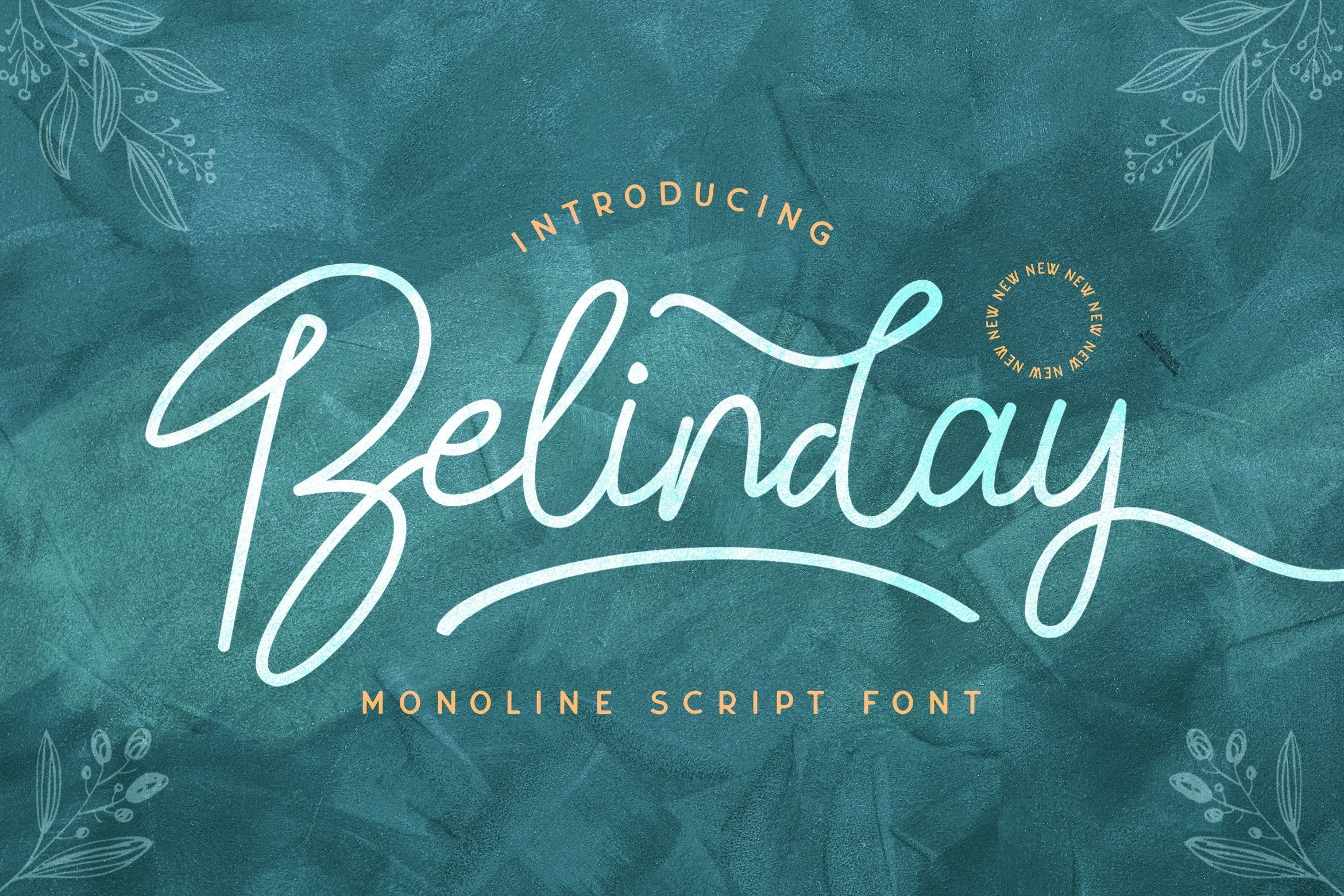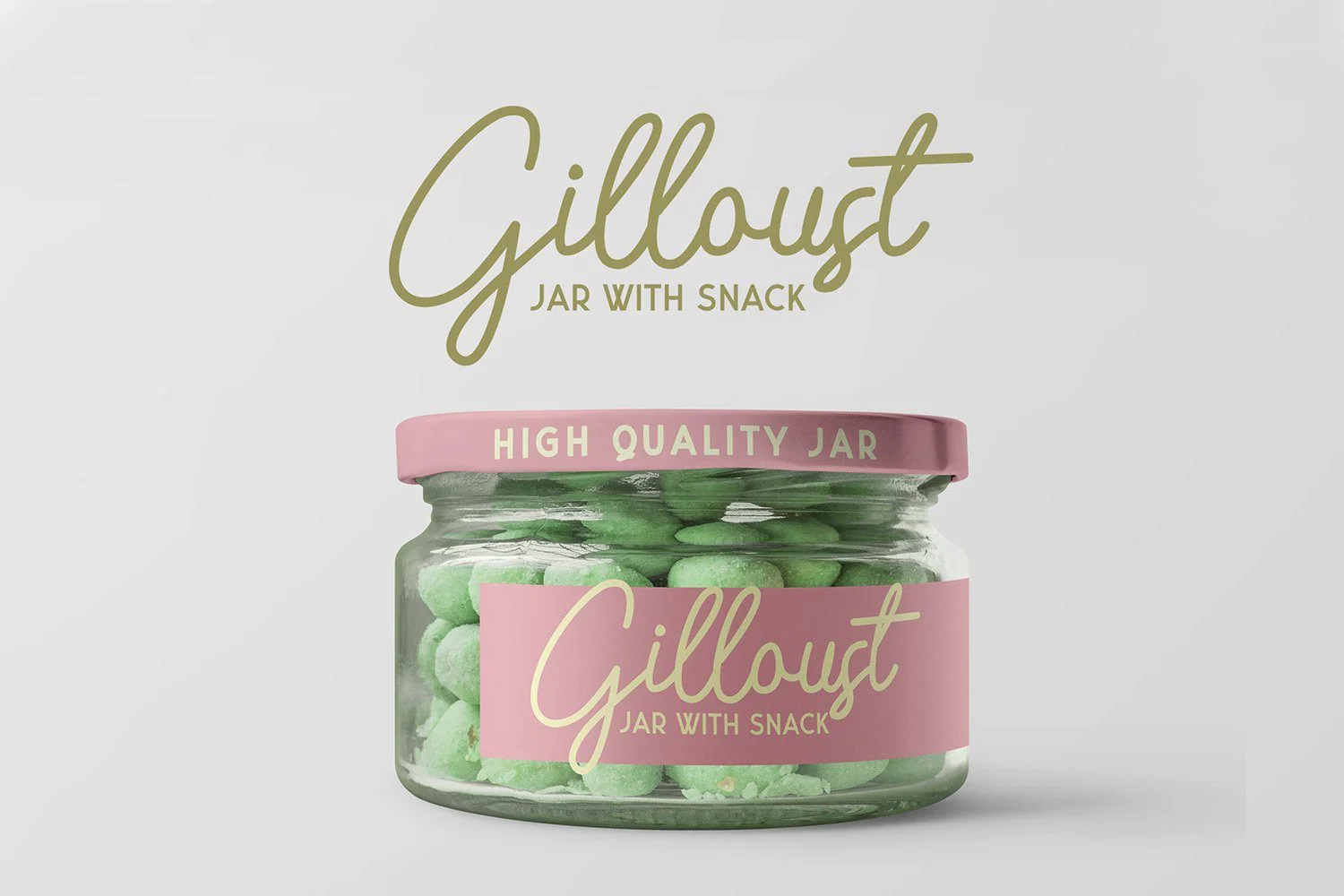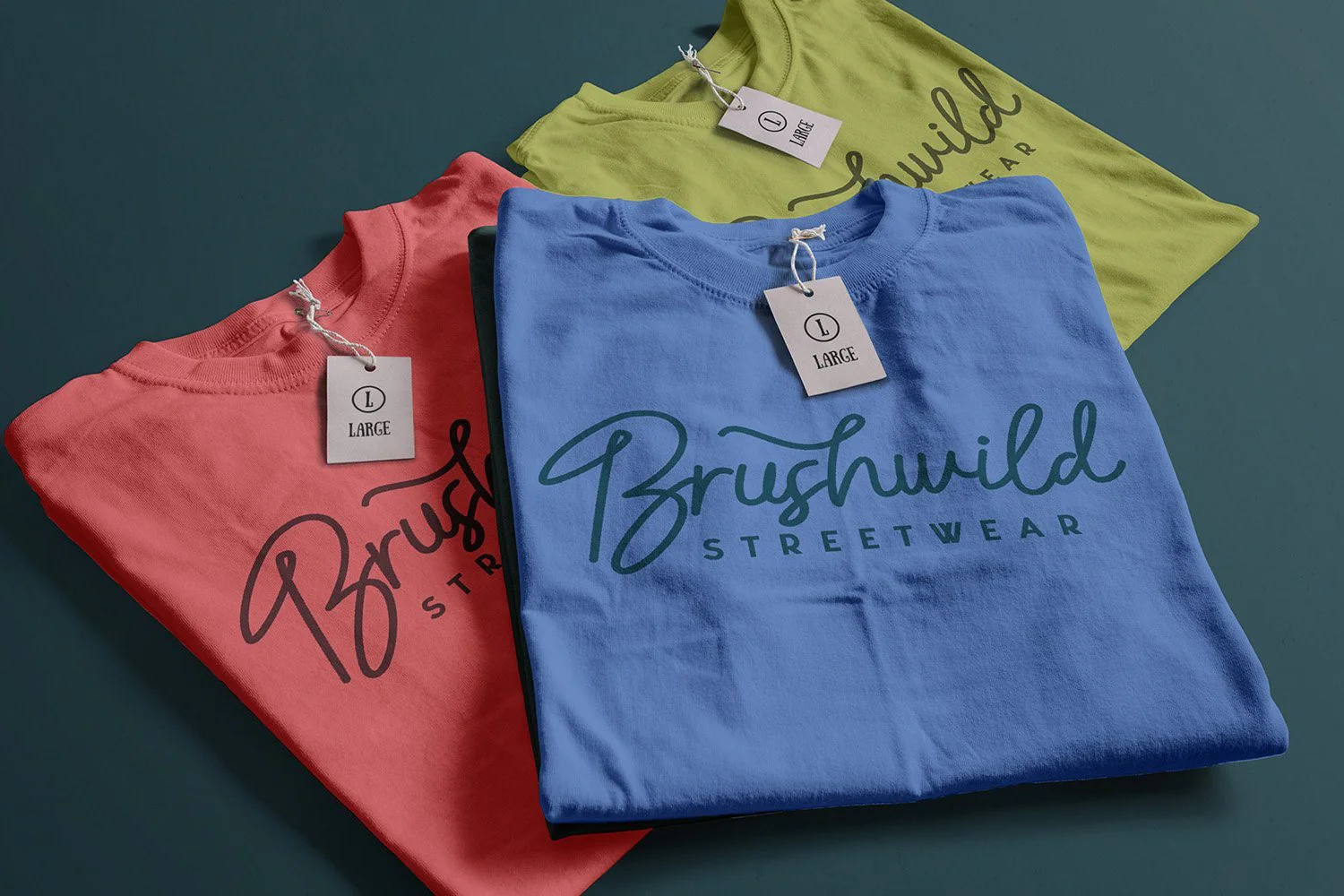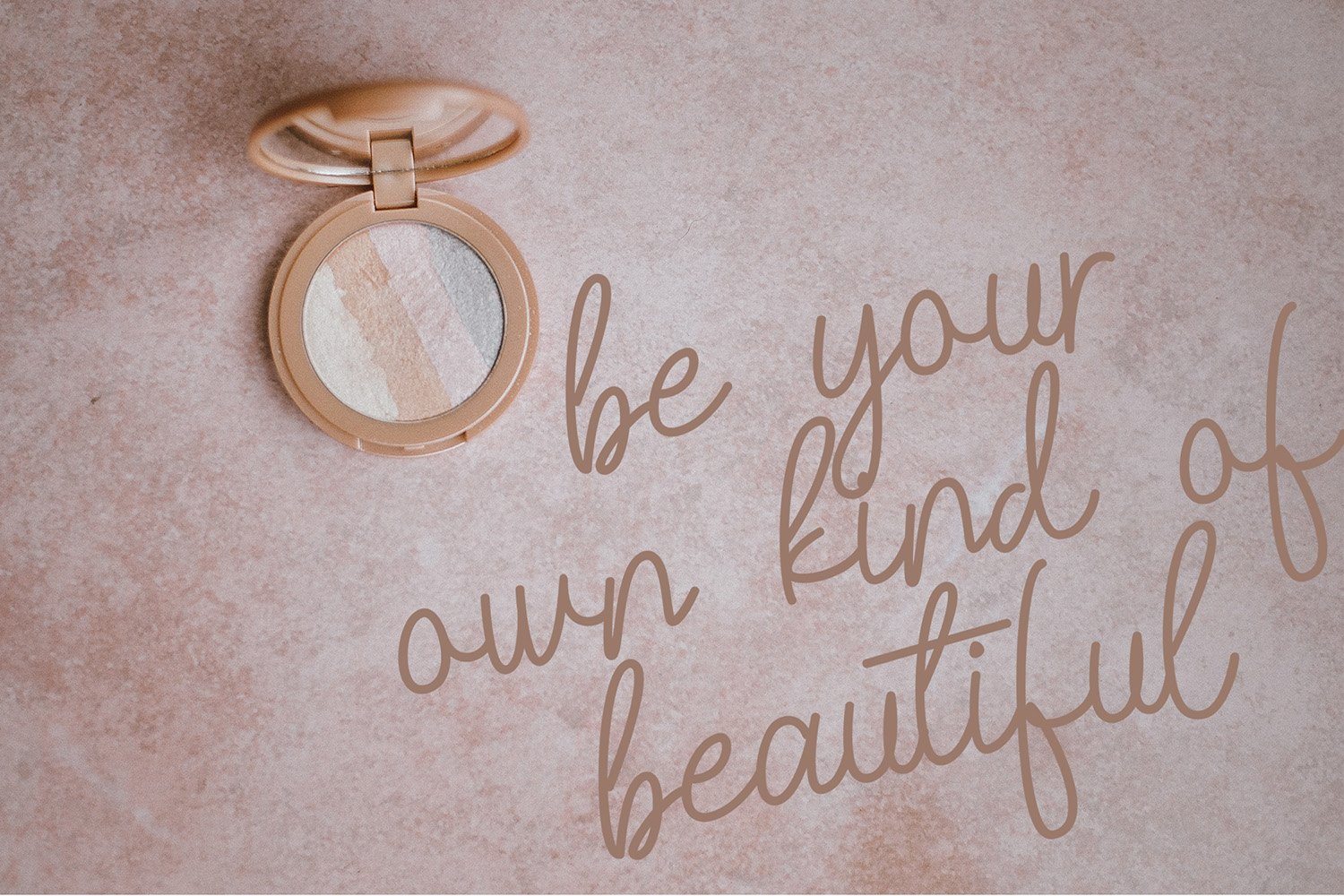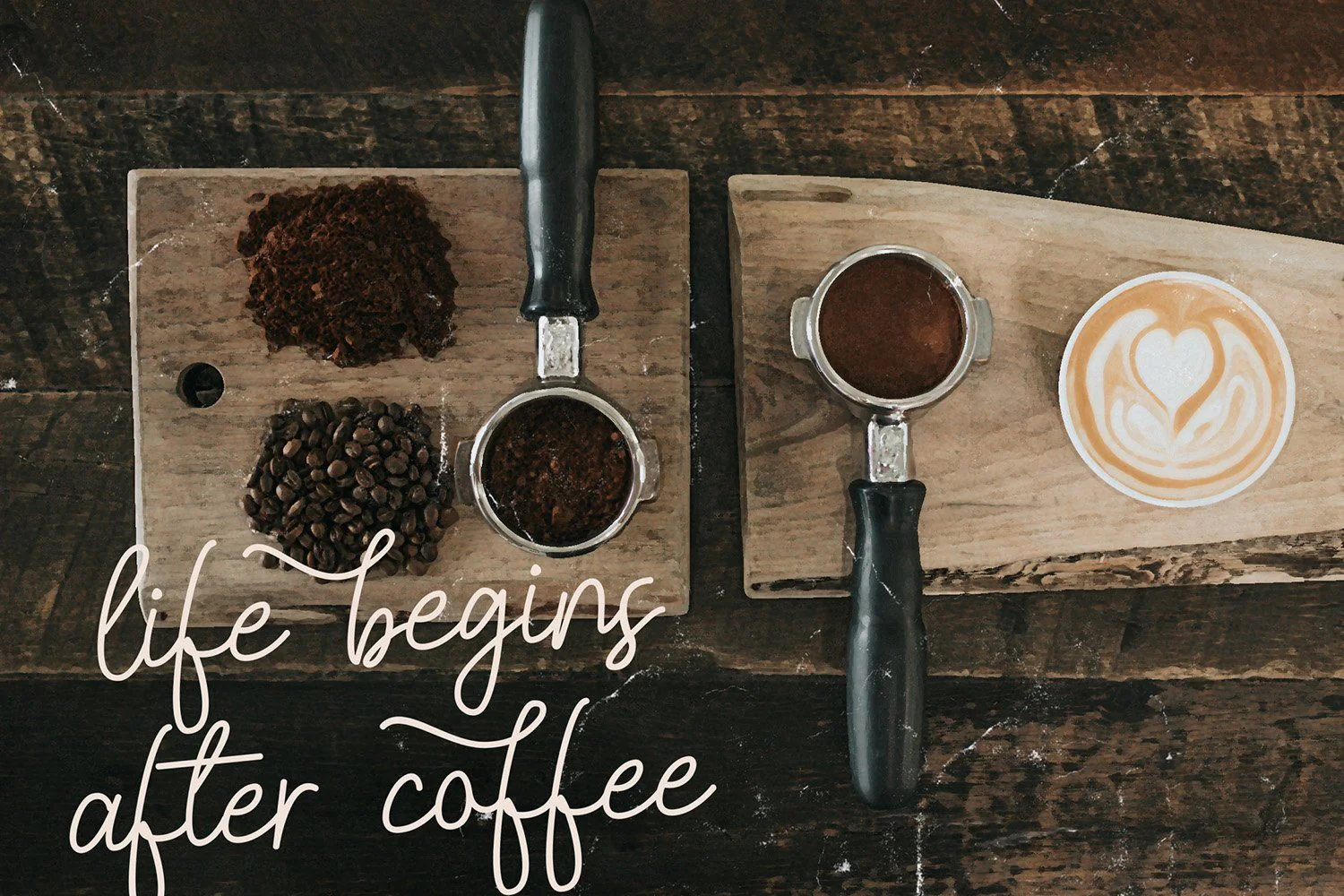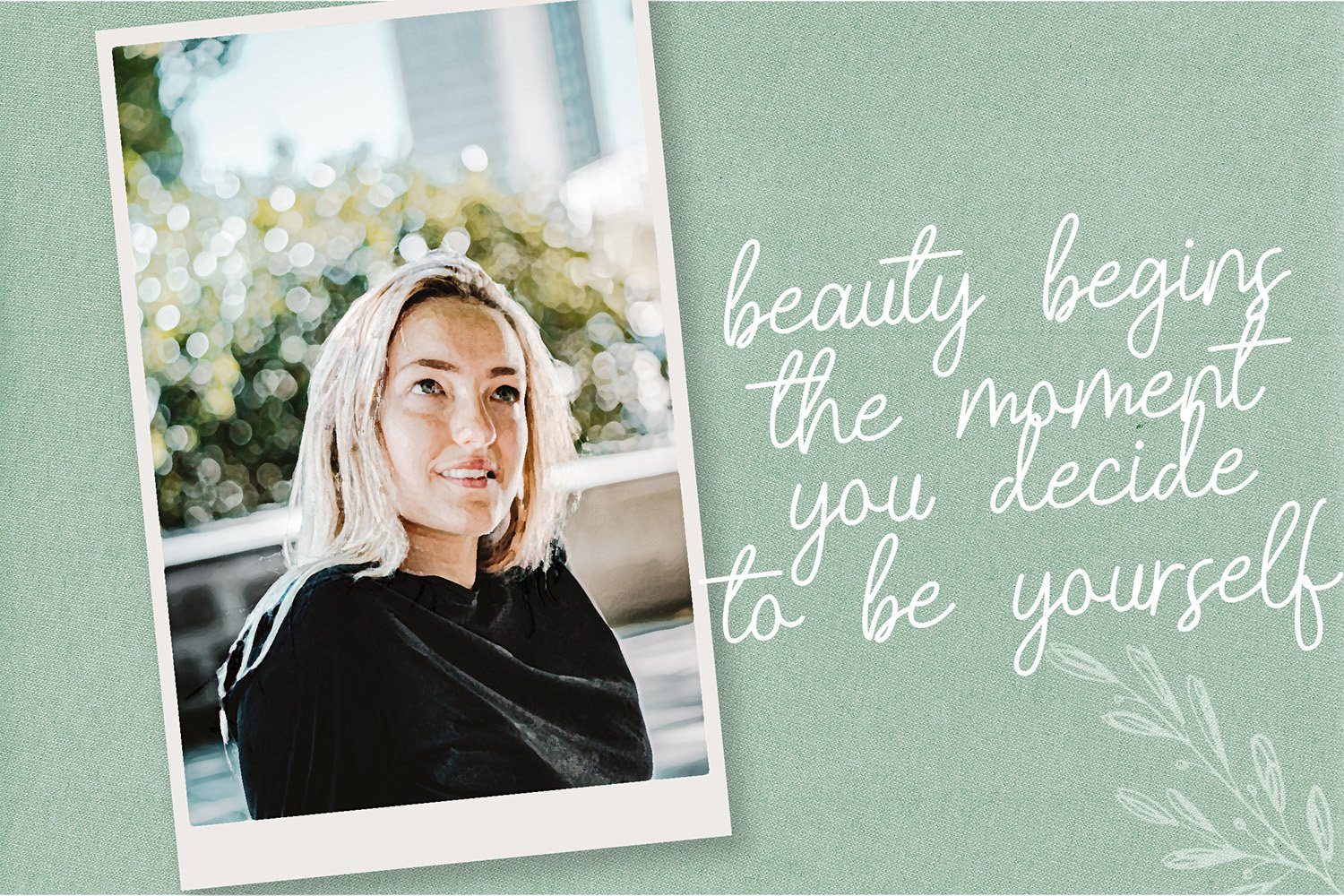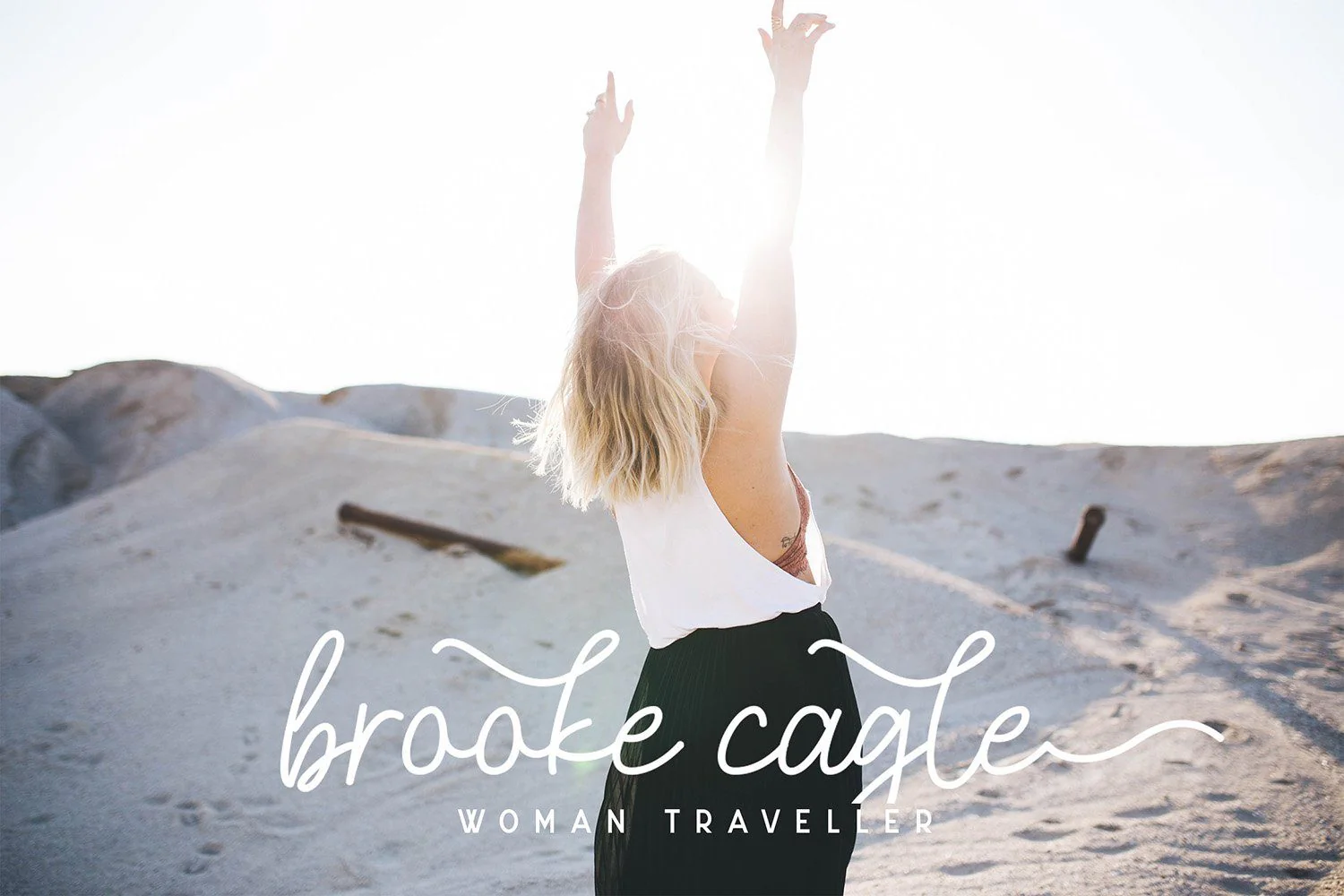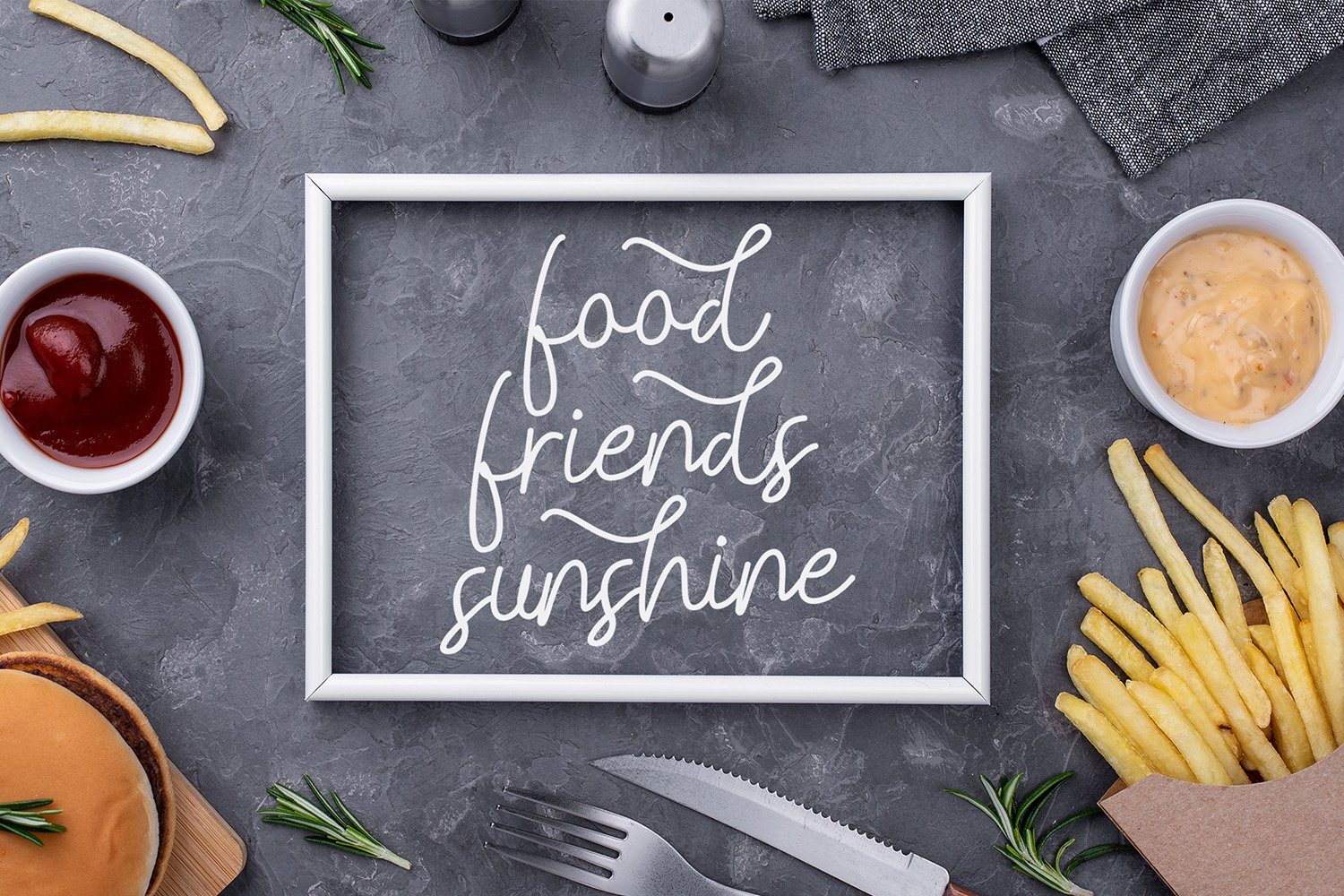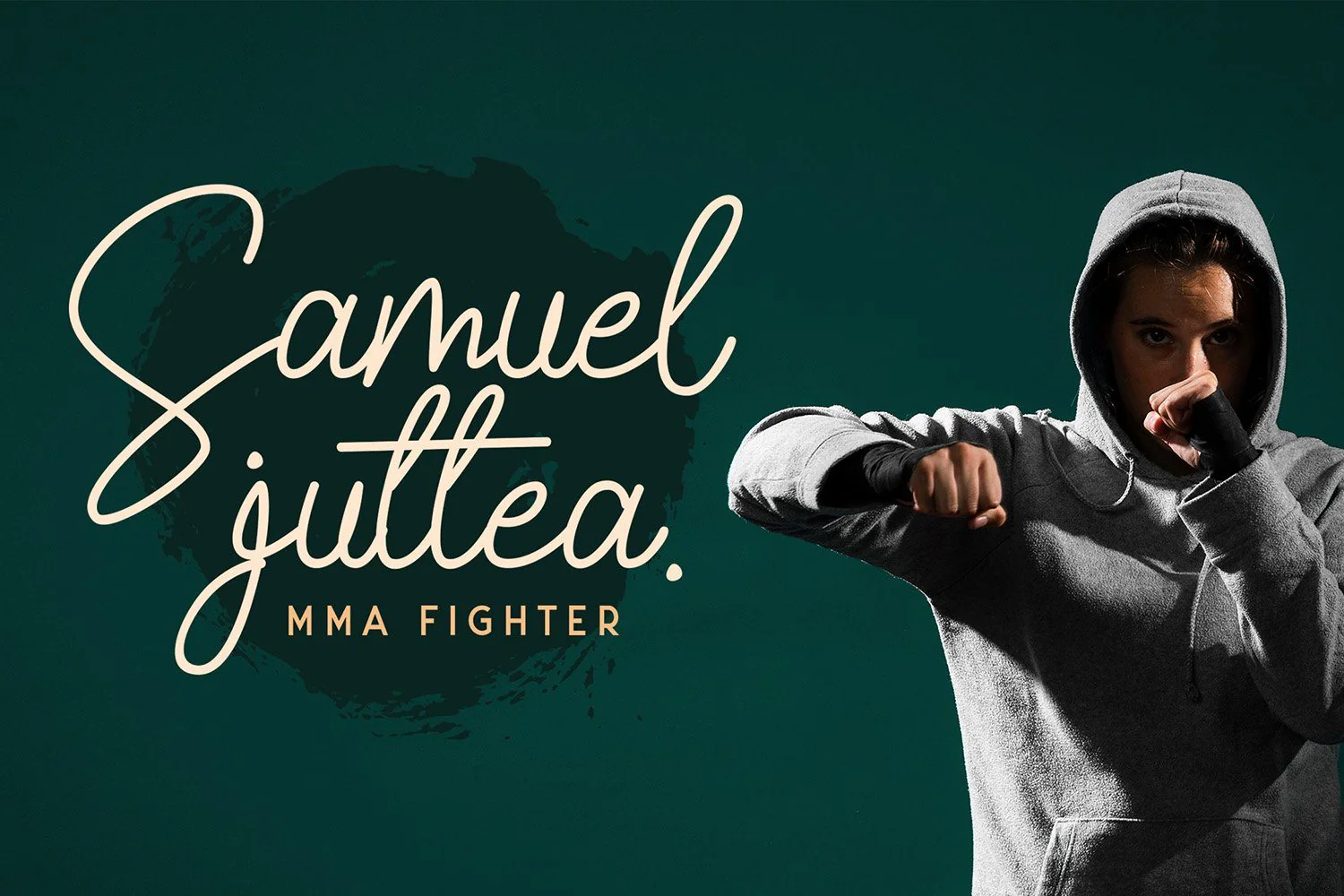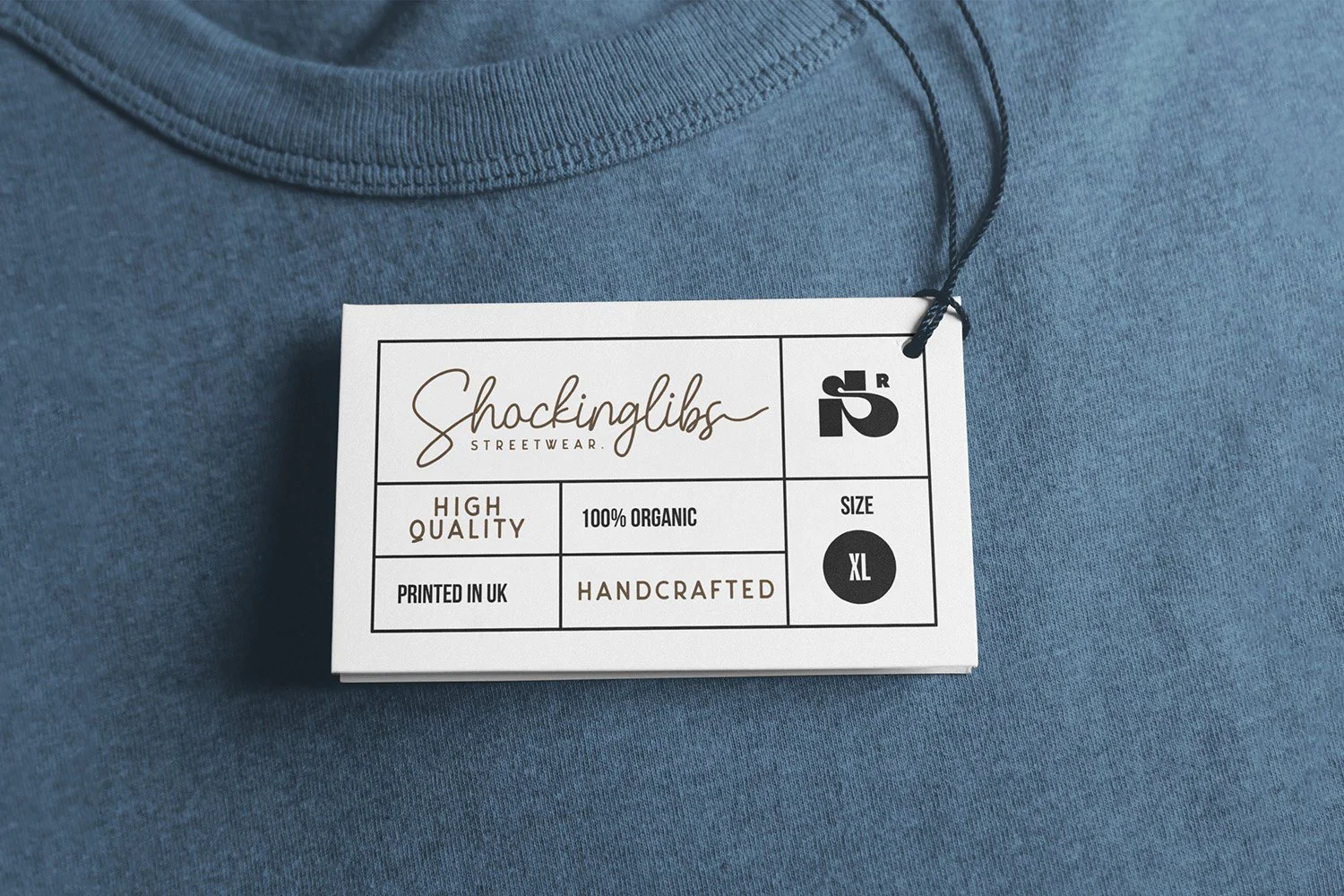
Belinday - Monoline Script Font
Introducing Belinday - Monoline Script Font
Belinday is a Monoline Script Font with Retro Vintage Style. This font is perfect for fashion brand, apparel, shoes company, wedding invitation, business card, logo brand, clothing, and also business brand name like barber shop or taylor.
This Font Template contains Classy, Elegant, Creative, and has a Unique Concept.
- Stylistic Set 01
- Stylistic Set 02
- Stylistic Set 03
Introducing Belinday - Monoline Script Font
Belinday is a Monoline Script Font with Retro Vintage Style. This font is perfect for fashion brand, apparel, shoes company, wedding invitation, business card, logo brand, clothing, and also business brand name like barber shop or taylor.
This Font Template contains Classy, Elegant, Creative, and has a Unique Concept.
- Stylistic Set 01
- Stylistic Set 02
- Stylistic Set 03